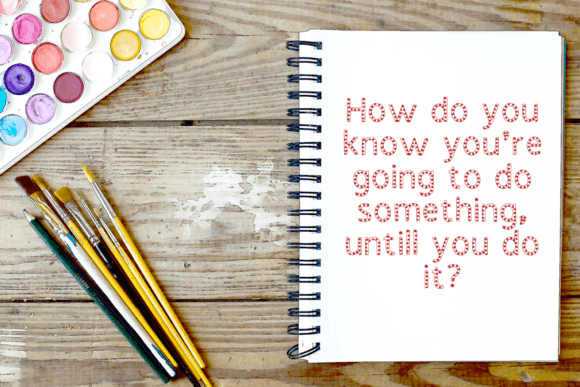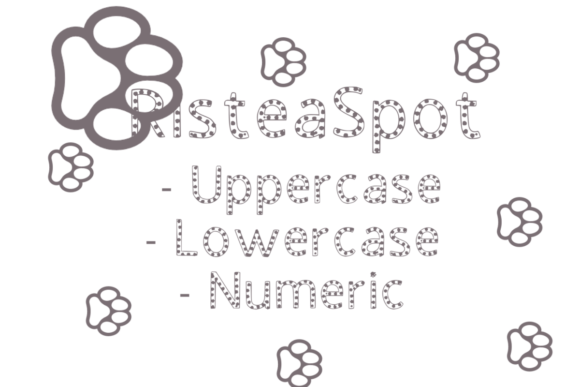
Introduction to Ristea Spot Font
Have you ever stared at a blank page, your mind racing with ideas but your creativity stuck in neutral? We’ve all been there. But what if you had the perfect spark to ignite your imagination and bring your design to life? Enter the Ristea Spot Font, a fun and quirky decorative display font that’s sure to add a dash of personality to your next creative project.
As a valuable design resource, the Ristea Spot Font is a game-changer for designers looking to elevate their work. With its high-quality design and transparent background, this font is the perfect addition to any project. And the best part? It’s available for free download, making it an accessible and affordable way to take your designs to the next level.
Whether you’re a seasoned pro or just starting out, the Ristea Spot Font is a must-have in your design toolkit. So why wait? Add it to your collection today and discover a world of creative possibilities.
Key Features of Ristea Spot Font
- Unique, modern design with a transparent background for flexibility
- Includes a range of characters, including uppercase and lowercase letters, numbers, and symbols
- High-resolution font, suitable for print and digital applications
- Perfect for use in logos, branding, and other design elements
Honest Review: Ristea Spot Font
I recently came across the Ristea Spot Font and I must say it’s a fantastic addition to any design resource collection. This font is perfect for creative projects that require a unique touch.
One of the things that stood out to me about the Ristea Spot Font is its high quality. The font is crisp and clear, making it perfect for use on a transparent background. I was able to download it for free, which was a nice bonus.
Here are some of the things that work well with the Ristea Spot Font:
- Unique design aesthetic that sets it apart from other fonts
- High quality and crisp rendering
- Perfect for use on a transparent background
- May not be suitable for use in very small sizes due to its unique design
Overall, I’m really impressed with the Ristea Spot Font. It’s a great addition to any design resource collection and is perfect for creative projects that require a unique touch. ⭐️⭐️⭐️⭐️
How to Use Ristea Spot Font
Ristea Spot Font is a high-quality design resource ideal for various creative projects. This free download offers a unique and stylish font perfect for adding a touch of elegance to your work.
Tips for Getting the Most Out of Ristea Spot Font
Experiment with different font sizes, colors, and combinations to achieve the desired look. Use the transparent background feature to create stunning graphics and designs.
Ristea Spot Font is ideal for various creative projects, including graphics, presentations, and documents. Use it to add a touch of elegance and sophistication to your work.
Yes, the Ristea Spot Font is designed to work seamlessly on transparent backgrounds, making it ideal for use in design projects that require a high level of visual flexibility and customization.